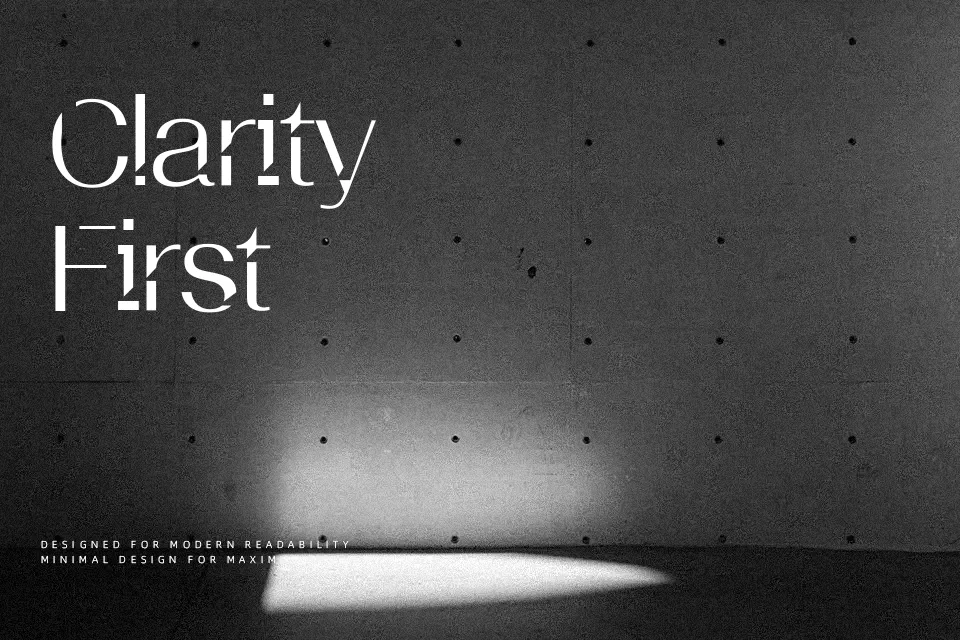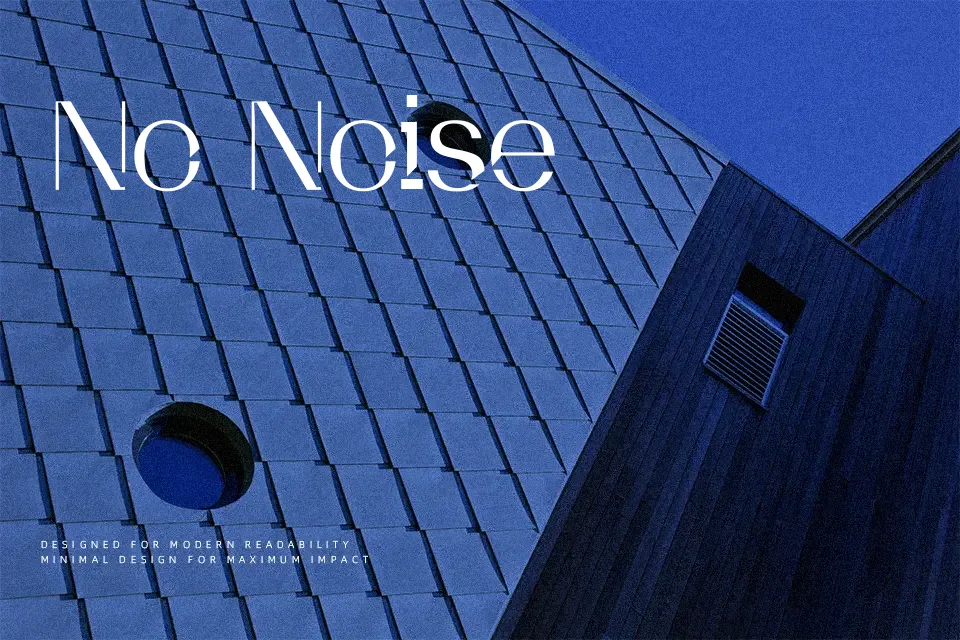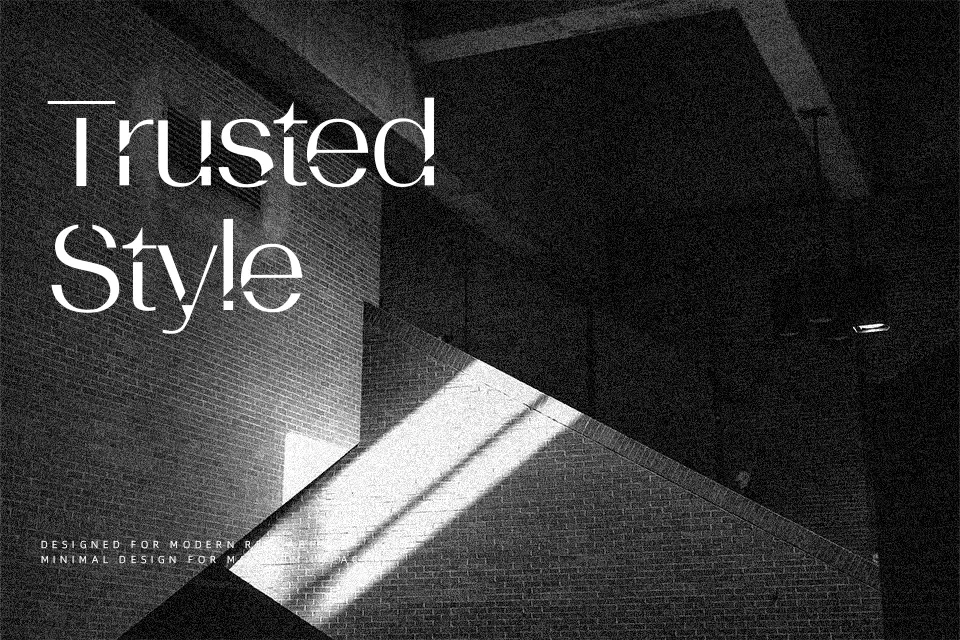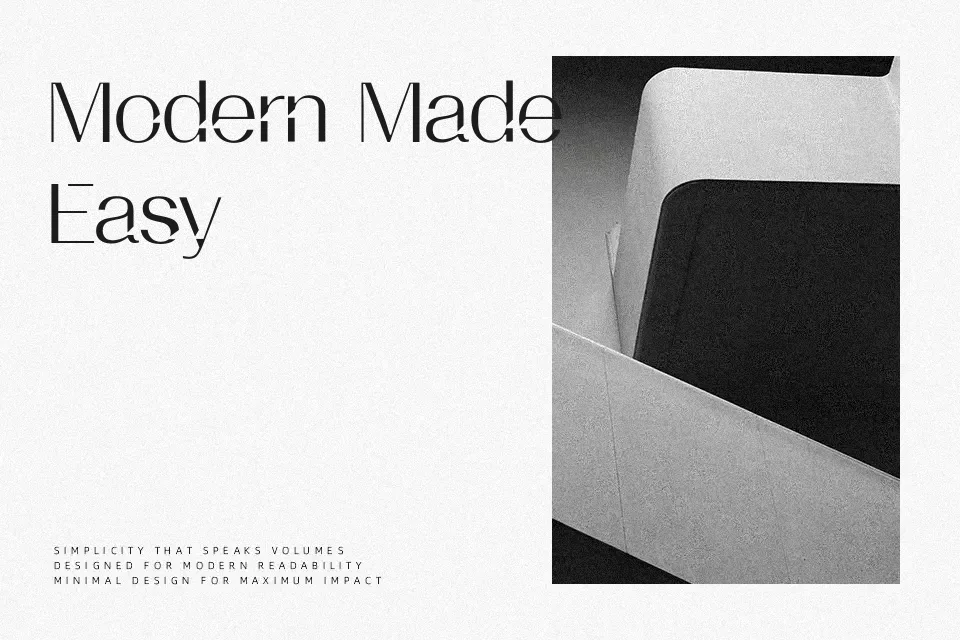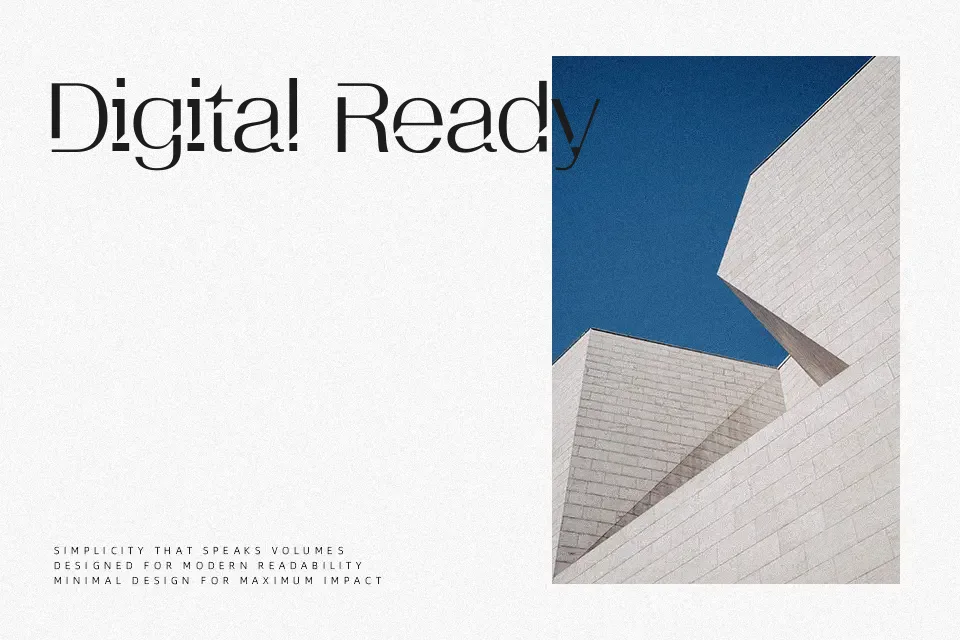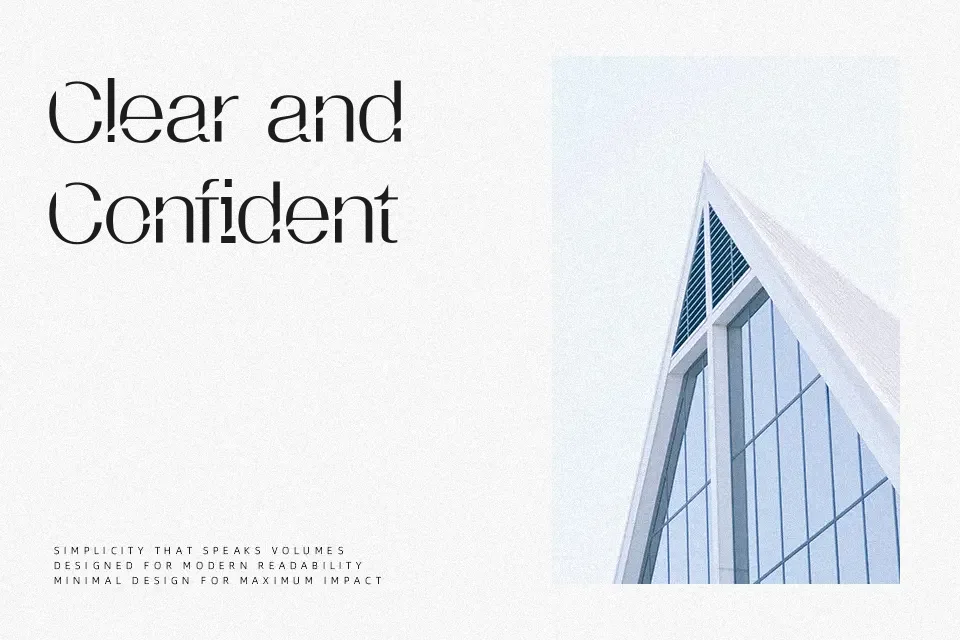
Calton Hosvesk Font
Designed by UI Creative
Calton Hosvesk combines a clean sans serif skeleton with cut-out stencil gaps and pointed terminals, giving the strokes a slightly aggressive, industrial flavor. The weight range runs from lighter styles to hefty bolds, so you can push hierarchy from subtle subheads to loud titles while keeping spacing reasonably tight and compact. It works nicely on posters, sports or tech branding, event graphics, and social media covers where you need a strong voice rather than something neutral. By contrast, it tends to feel too tense for long body text or soft, romantic layouts, and the stencil cuts can become distracting at very small sizes.
bold poster headlines and event titles
edgy branding for tech,sports or streetwear
hero text on social media graphics
short editorial pull quotes with impact
long body paragraphs or dense reading
soft wedding or romantic stationery
small UI labels or system text
highly traditional corporate documents